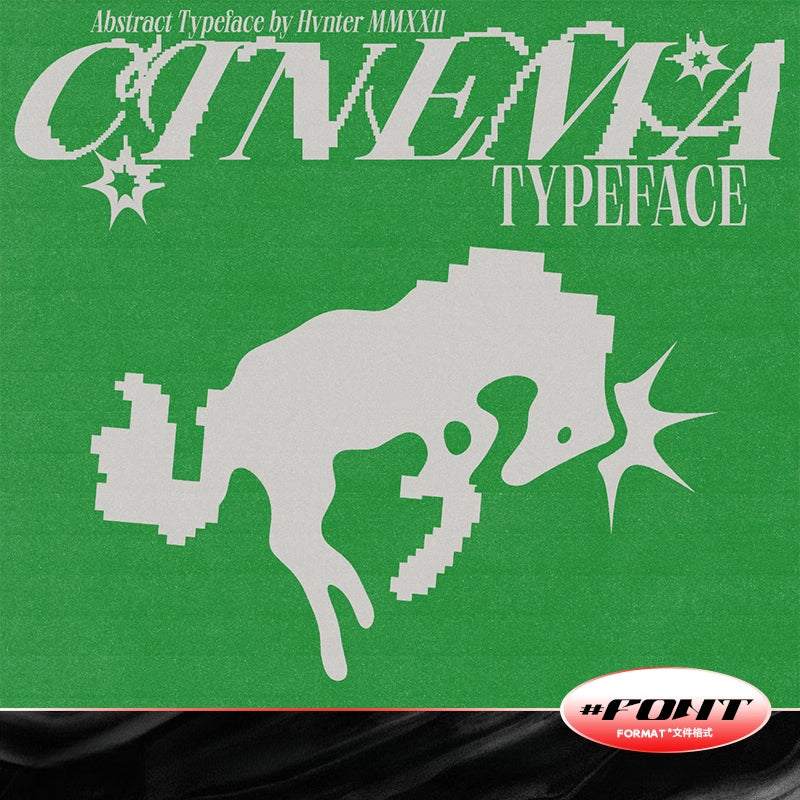
🔥Acidic Trendy Niche Hip-Hop Rap Pixel Edge Fonts – Commercial Use Ready!
Elevate designs with these fonts blending acidic aesthetics, trendy vibes, and hip-hop influences. Ideal for pixel-edge art, they add an edgy, niche touch to any project.
🌟 Key Highlights
- Unique Style Fusion:Merge acidic trends, hip-hop elements, and pixel-edge textures for eye-catching designs.
🎨 Ideal For
- Hip-hop Branding:Logos, album covers, artist merchandise.
- Digital Art:Procreate illustrations, pixel art, social media graphics.
- Trendy Projects:Posters, flyers, streetwear designs with an acidic twist.